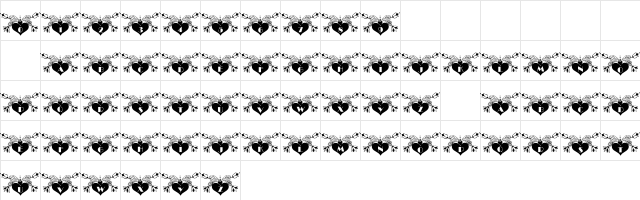
101! Dezigner HeartZ Regular Free Font
101! Dezigner HeartZ Regular
Design Context for 101! Dezigner HeartZ
101! Dezigner HeartZ is a composed and adaptable typeface that performs quietly and consistently across a wide range of design contexts.